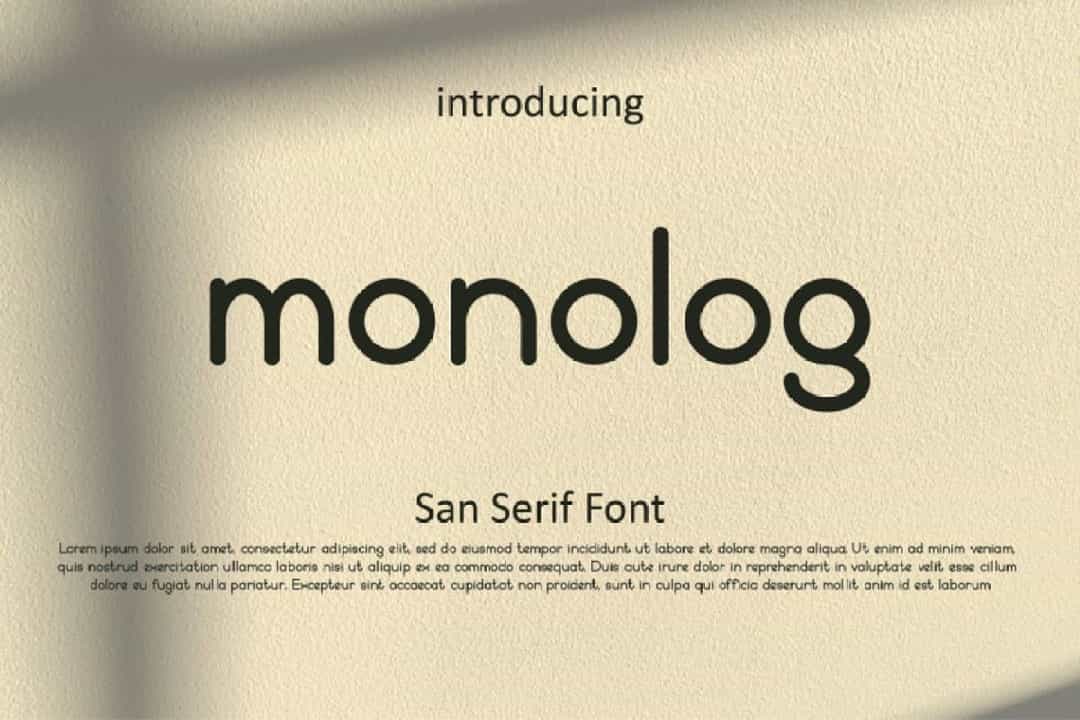
Discover Monolog Font, part of the Sans Serif collection—a versatile and unique font perfect for adding a personal touch to your projects. Download it for free and enjoy crafting designs with style, from invitations to social media posts. This font is available exclusively for personal use, giving you the freedom to create without limits. Unlock your creativity with Monolog Font today!
Monolog is a contemporary simple font perfect for websites, marketing materials, branding materials and wedding invitations. You are sure to incorporate it into your design tools!